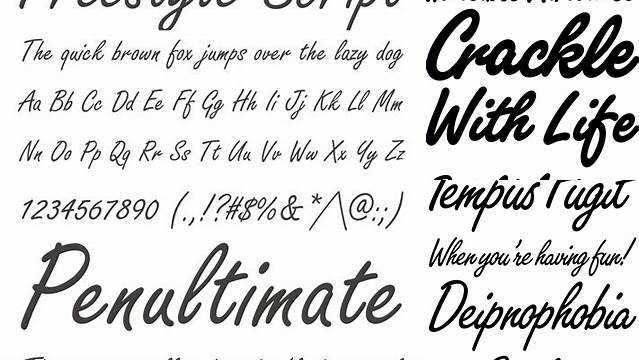
H2: Unveiling the Allure of Freestyle Script SH Reg Font
Alright, let's get down to the nitty-gritty of what makes the Freestyle Script SH Reg font so special, yeah? This isn't just any font; it's a statement. It's got this effortlessly cool, handwritten style that brings a touch of personality and charm to any project. Think about it β do you want your designs to look stiff and boring, or do you want them to have that human touch? That's where Freestyle Script SH Reg comes in. It's like your design secret weapon! The font's curves and strokes mimic real handwriting, giving it a natural and inviting feel. It's perfect for everything from invitations and posters to logos and social media graphics. It's got that vintage vibe that's super trendy right now, but it's also timeless enough to stay relevant for years to come. This versatility is part of what makes it so beloved by designers of all levels. The way the letters flow together just draws your eye in, making your text visually appealing and easy to read. It's like the font is whispering, 'Hey, look at me!' and you just can't help but take a peek. Because it's legible, you can use it for titles, headlines, or even short paragraphs. With its unique flair, Freestyle Script SH Reg adds a touch of elegance and sophistication, making your designs stand out from the crowd. The feeling it gives is a sense of artistry and individuality. This makes it a fantastic choice if you are trying to leave a lasting impression. And let's not forget its impact on branding. Imagine your logo or branding materials all done in Freestyle Script SH Reg. It's a surefire way to create a memorable and distinct brand identity. So, whether you're a seasoned designer or just starting out, this font can make your projects sing. It's more than just letters; it's a whole mood, a vibe, a personality. It's about infusing your design with a touch of authenticity and creative flair. Now that you know why it's so good, let's talk about how to get your Freestyle Script SH Reg font free download!
H3: Diving into the Features and Characteristics of Freestyle Script SH Reg
Okay, let's get into the nitty-gritty of what makes the Freestyle Script SH Reg font tick. First off, it's a script font, which means it's designed to look like handwriting. That's where it gets its charm, right? Each letter is carefully crafted to flow into the next, giving it a smooth, elegant feel. Think about the way a calligrapher writes β that's the vibe this font brings. One of the key features is its legibility. Itβs easy to read, even at smaller sizes, which is super important if you're using it for more than just headlines. You want people to actually be able to read what you're writing, right? The font has a good balance between being stylish and readable. You won't have to worry about people squinting or struggling to figure out what your text says. Speaking of style, the font has a classic, timeless look. It's been around for a while, but it still feels fresh and relevant. It's perfect if you're going for a vintage feel or want to add a touch of sophistication to your project. Imagine using it for wedding invitations, posters, or even social media graphics. It instantly elevates the design, making it look more polished and professional. The font has a variety of weights and styles, including the regular version, which is the star of the show. It's the most versatile and can be used for a wide range of applications. The regular weight is the go-to for most designers and is the easiest to read. But the flexibility doesn't stop there. It offers different variations, like bold or italic, so you can add emphasis or change the mood of your text. This allows you to create different looks depending on your design needs. The letterforms themselves are carefully designed. The curves are soft and inviting, and the strokes are consistent, making the text look harmonious and visually appealing. This attention to detail is what sets this font apart and why it's such a favorite among designers. Each letter feels handcrafted, adding a unique touch to your projects. And let's not forget about its versatility. You can use it for everything from logos and branding to website design and print materials. It's the kind of font that can do it all. Now, the best part is that you can get this amazing font for free. The Freestyle Script SH Reg font free download is readily available, opening up a world of design possibilities without costing you a penny. So, download it, play around with it, and see what you can create!